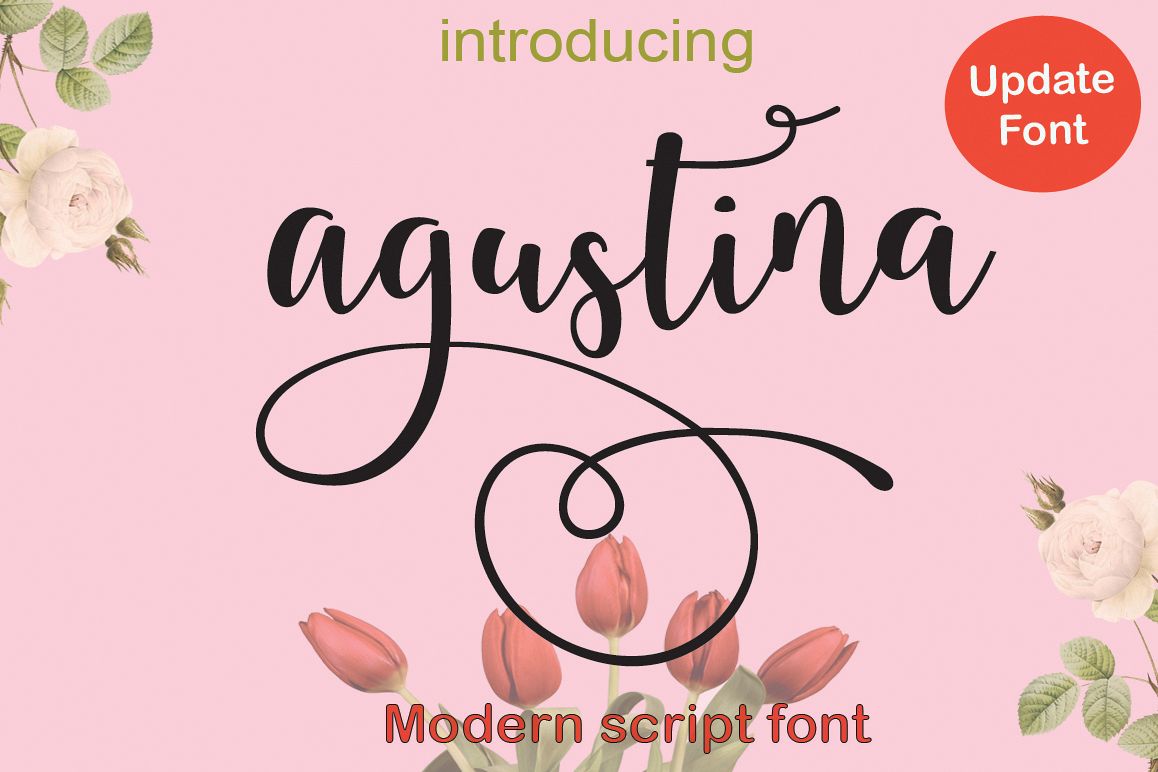
agustina UPDATE
Agustina Update
Introducing:
Agustina Script (UPDATE) is a stylish calligraphy font that features a varying baseline, classic and elegant touch. Can be used for various purposes. such as headings, signature, logos, wedding invitation, t-shirt, letterhead, signage, lable, news, posters, badges etc.
Initial Alternates
Terminal Alternates
PUA
Stylistic sets
Basic Latin A-Z and a-z
Numbers